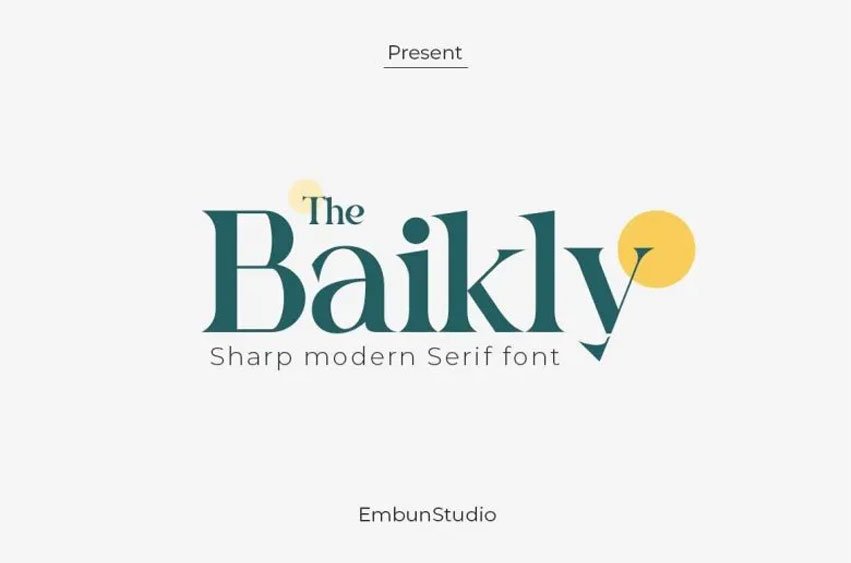
Baikly Font
Baikly Font Serif typeface gets its design inspiration from Russian Baikal Lake yet it remains an efficient solution for eye fatigue.
The creators strive to make this font enhance the aesthetics of projects where it is used while seeking support or platforming innovative suggestions for further development in upcoming updates.